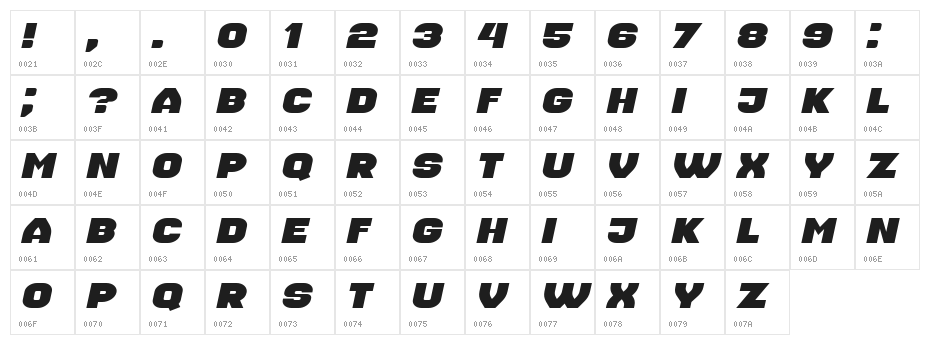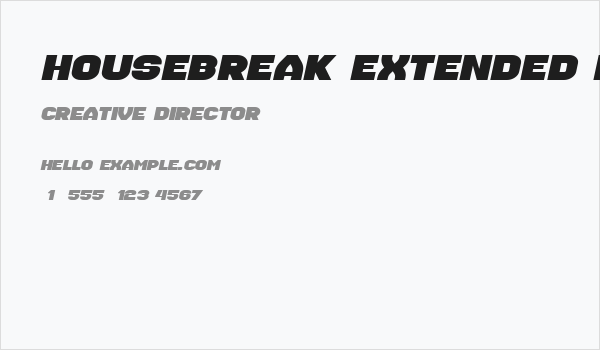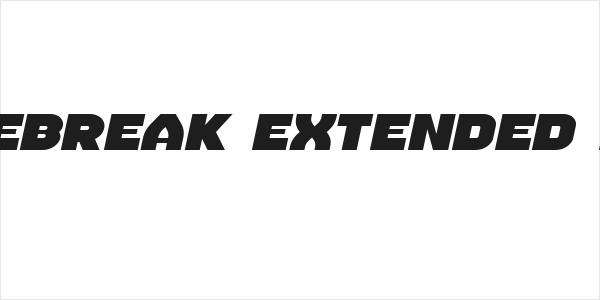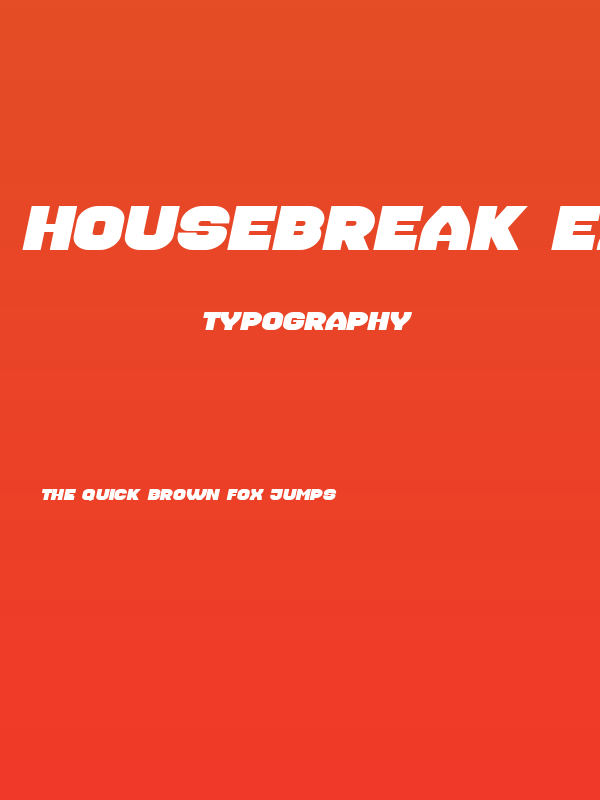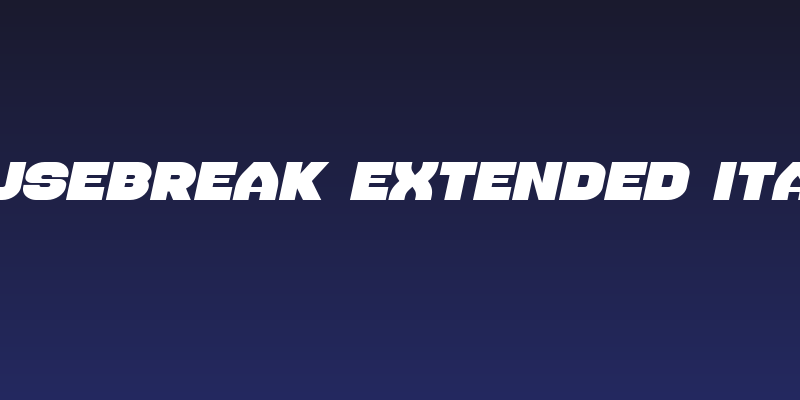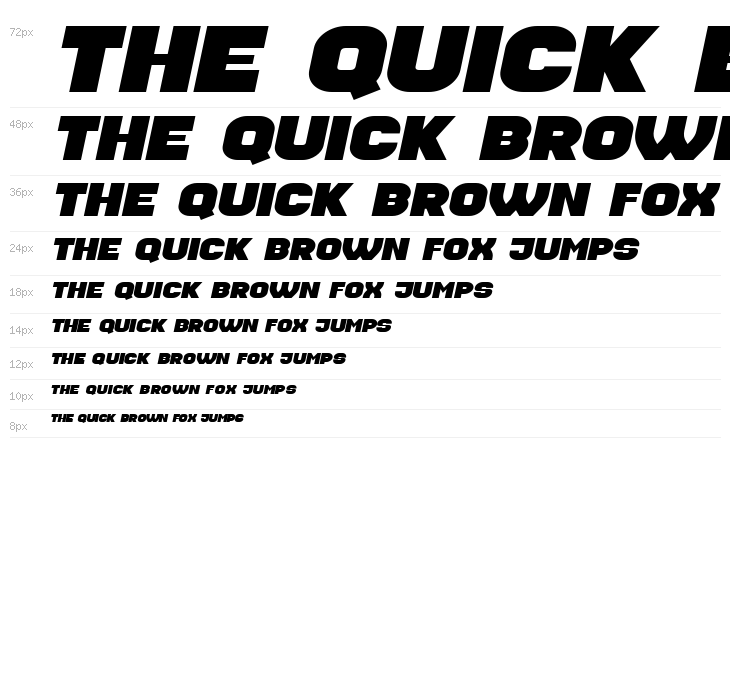
Housebreak Extended Italic Font
Housebreak Extended Italic Description
This font features a bold, italicized style with a distinctly modern and dynamic appearance. The characters are wide and extended, giving them a strong presence on the page. The strokes are thick, contributing to a high contrast between the characters and the background. The italic slant adds a sense of motion and urgency, making it suitable for attention-grabbing headlines or impactful logos. The character spacing is relatively tight, which enhances the compact and cohesive look of the text. The overall style is contemporary and assertive, ideal for projects that require a bold statement.
| Proposed Projects | Ideal for headlines, branding, sports team logos, and dynamic advertising materials. |